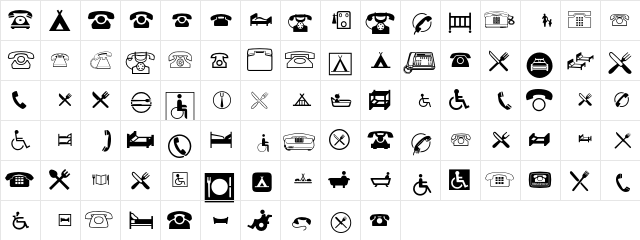
Communications P01
Design Context for Communications Typeface
Communications takes a measured approach to typography — its balanced proportions and neutral character make it a reliable workhorse for both digital and print work.